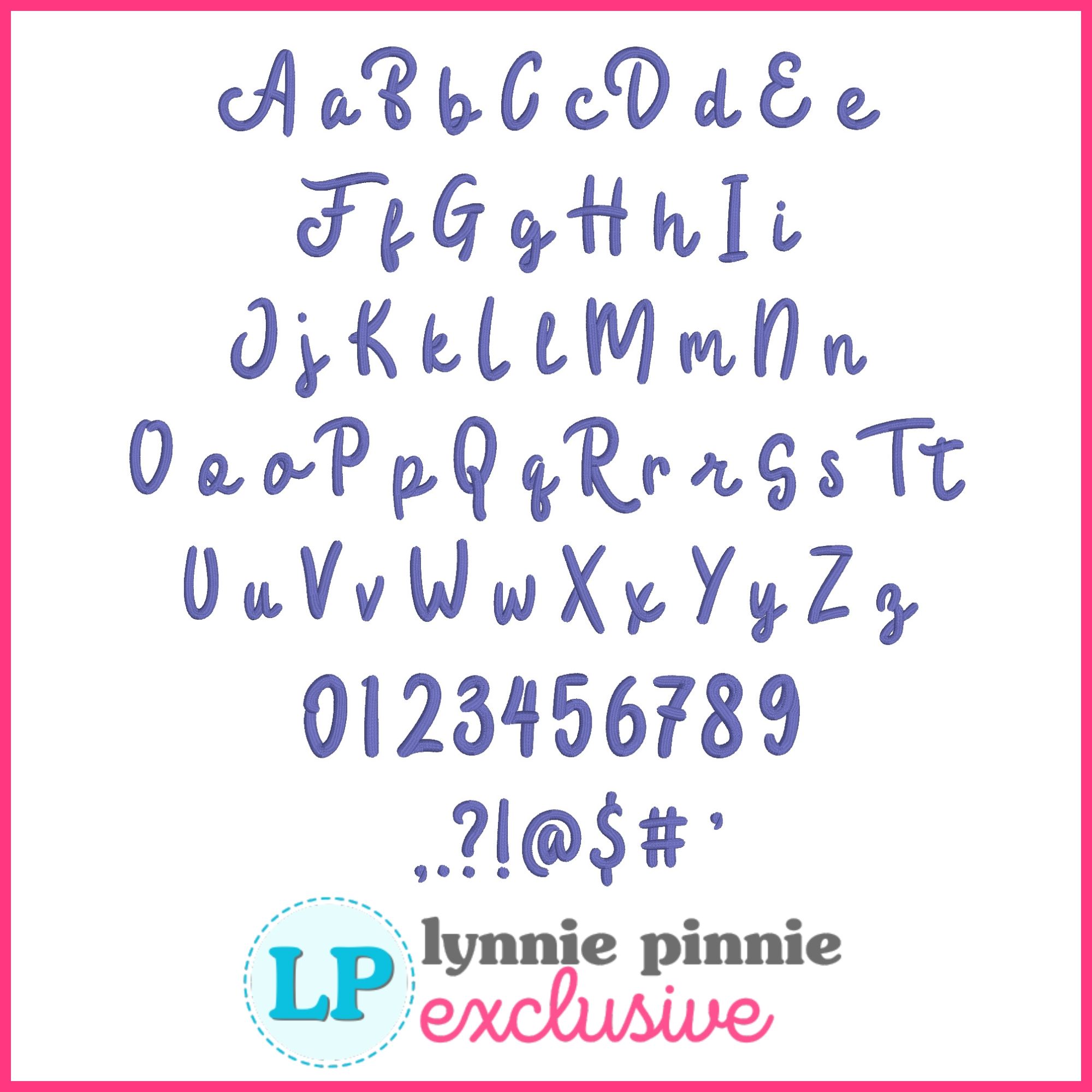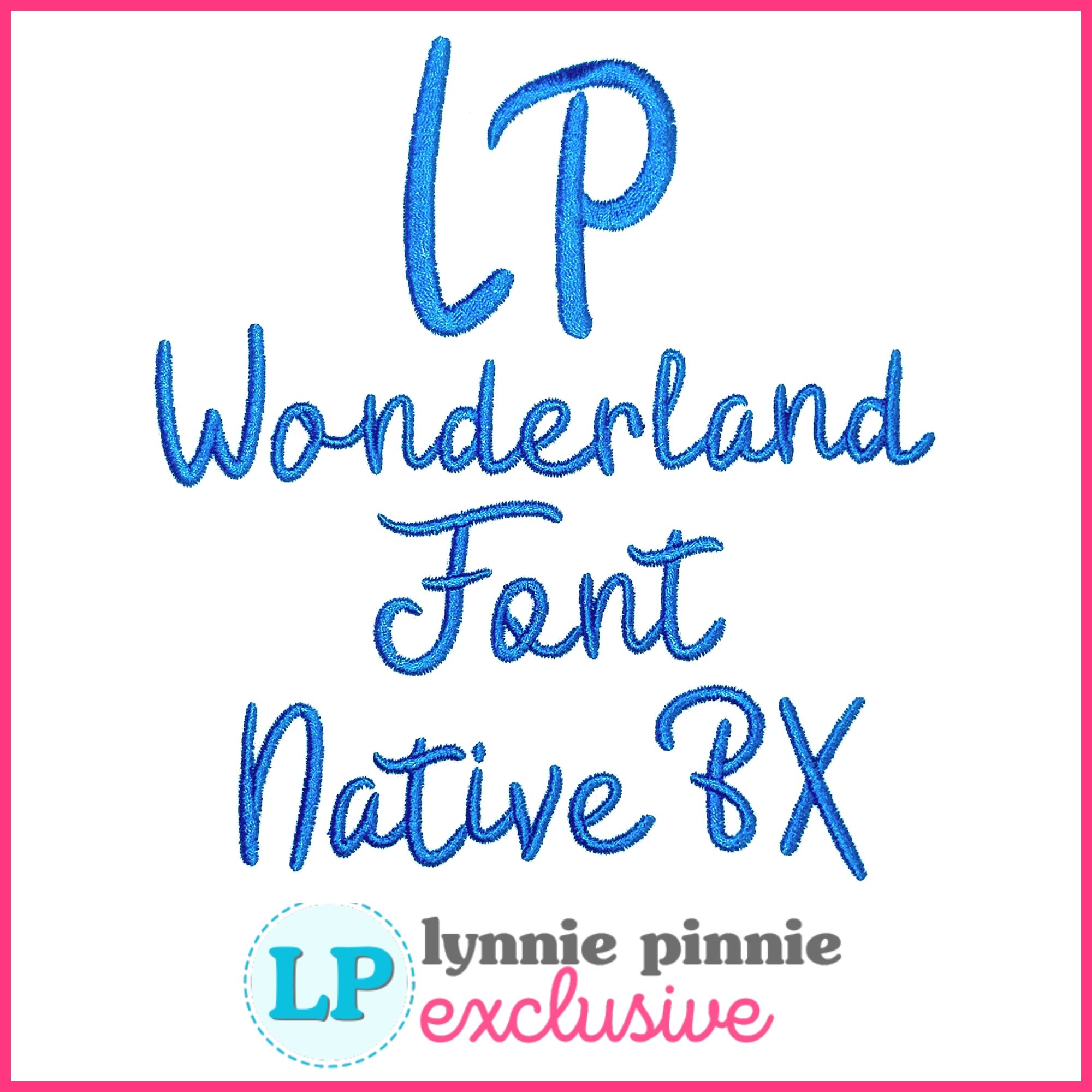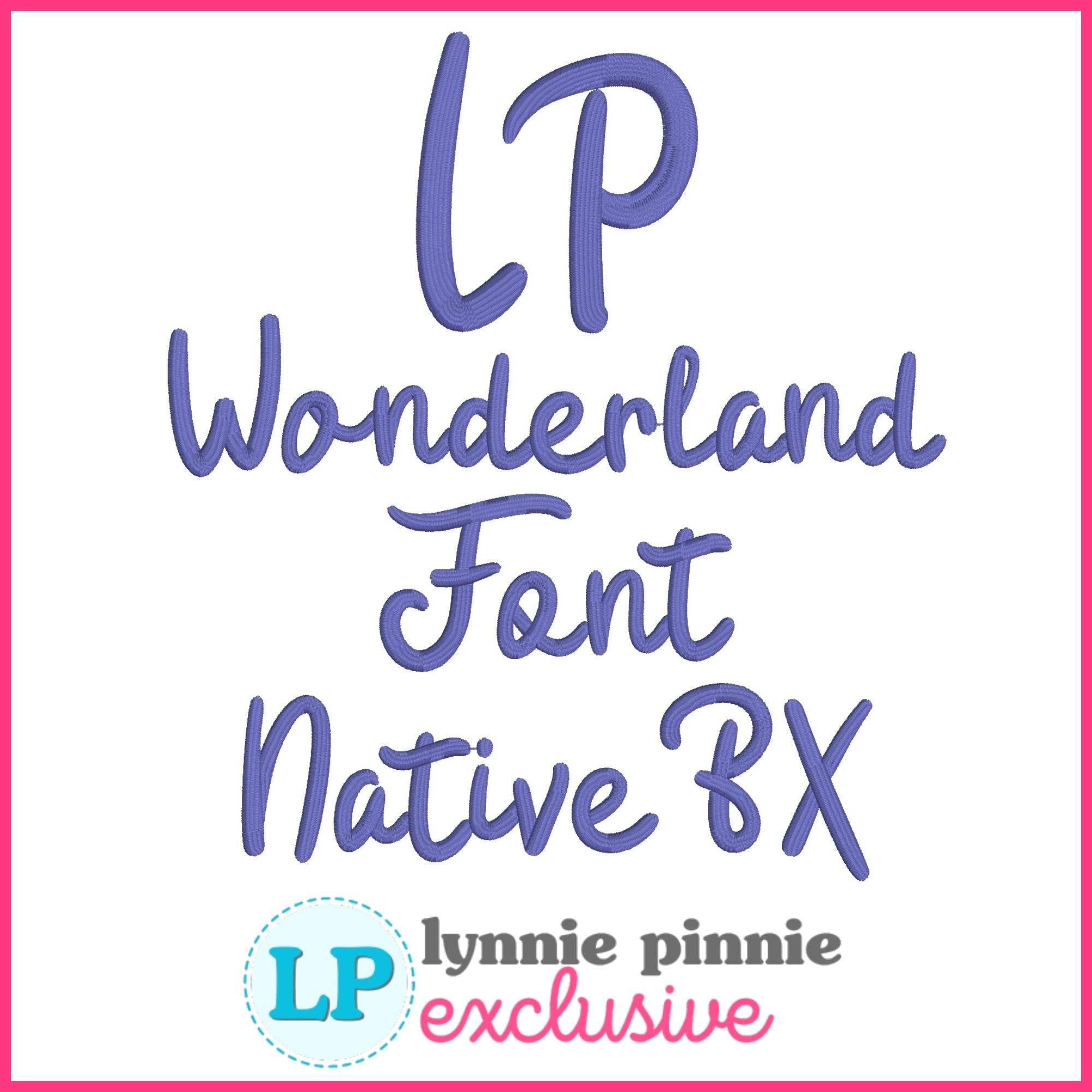
Wonderland Machine Embroidery Font – 7 Sizes + Scalable Native BX File
Wonderland is a playful, bold, and lightly whimsical satin stitch embroidery font that includes uppercase, lowercase, numbers, punctuation, and two alternate characters.
A perfect choice for kids' items, boutique gifts, and cheerful monograms.